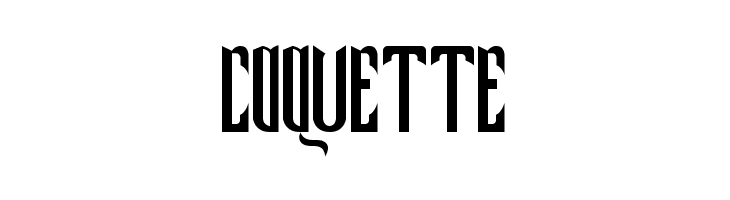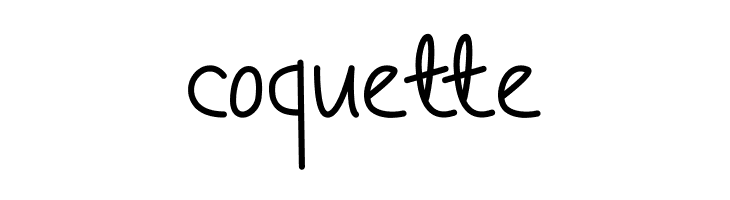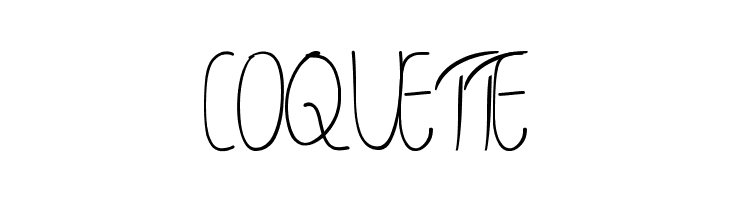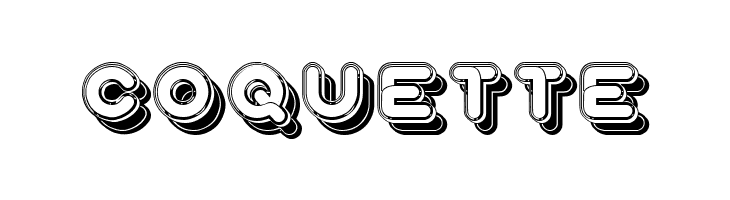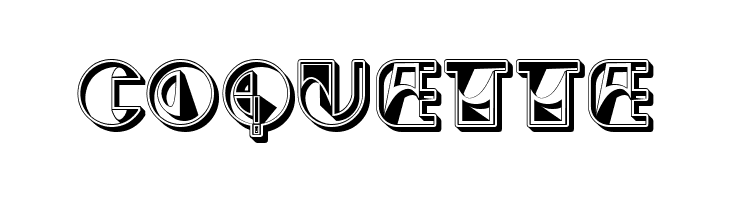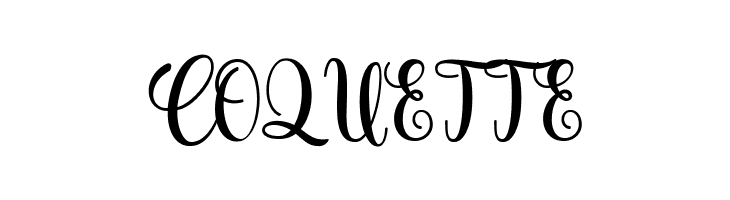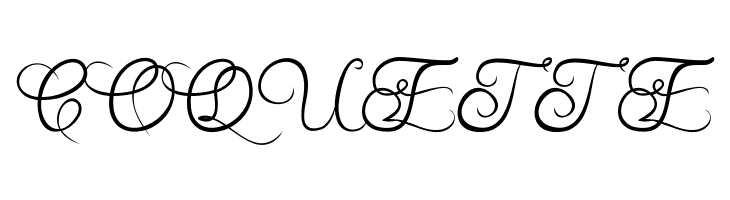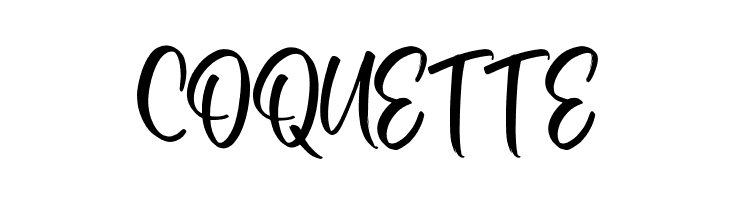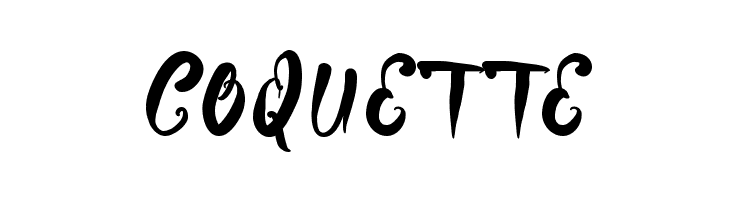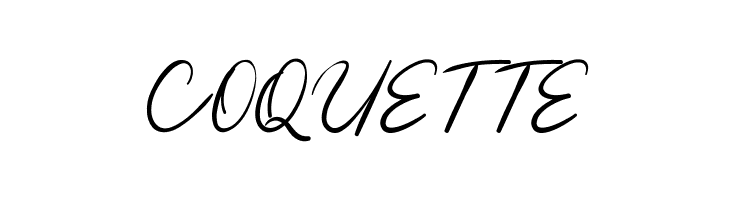
A graceful, handwritten script font with elegant, flowing lines.
A cursive, handwritten font with elegant, flowing strokes.
A bold, 3D font with a playful, bubble-like appearance and strong contrast.
A playful handwritten font with fluid, organic letterforms and consistent stroke width.
A playful, whimsical handwritten font with flowing, irregular letterforms.
A bold, graffiti-inspired font with sharp, angular lines and a hand-drawn look.
A bold, geometric font with a three-dimensional outline and rounded corners.
Handwritten, ancient script with organic, flowing forms.
A bold, geometric font with rounded edges and uniform stroke width.
A modern, geometric font with rounded edges and consistent line weight.
A futuristic, geometric font with clean lines and rounded edges.
A decorative and lively font with intricate details and a festive flair.
A modern, geometric font with sharp angles and smooth curves.
A bold, expressive script font with dynamic, cursive letterforms.
An elegant, flowing script font with intricate loops and flourishes.
A bold, playful script font with a handwritten style.
A bold, handwritten script font with a lively and fluid style.
A playful, bold font with rounded edges and a dynamic slant.
A bold, cursive script font with elegant loops and swashes.
A bold, expressive handwritten font with fluid strokes and a playful style.
An elegant and sophisticated script font with flowing cursive letters and intricate flourishes.
A bold, gothic-inspired font with sharp, angular edges and a dramatic flair.
A bold, geometric font with intricate patterns and strong outlines.
A decorative script font with elegant, flowing curves and ornate flourishes.